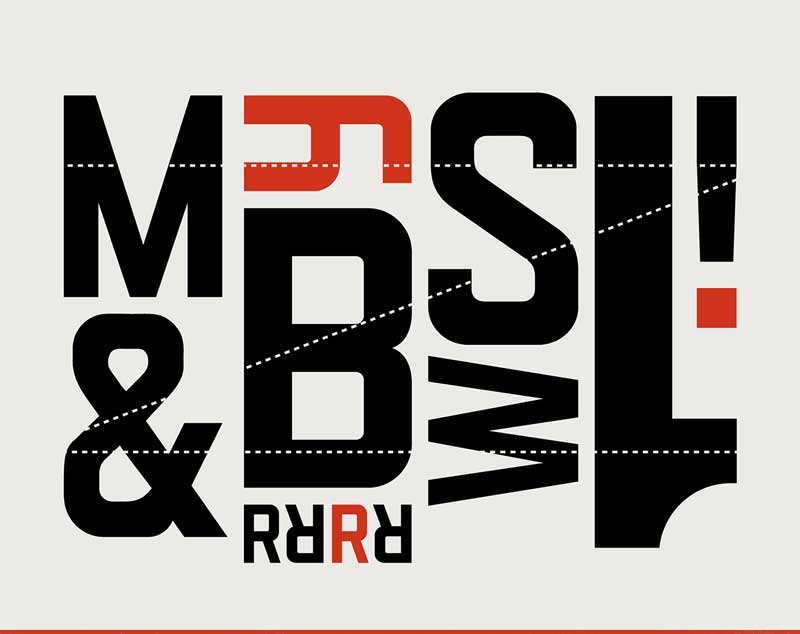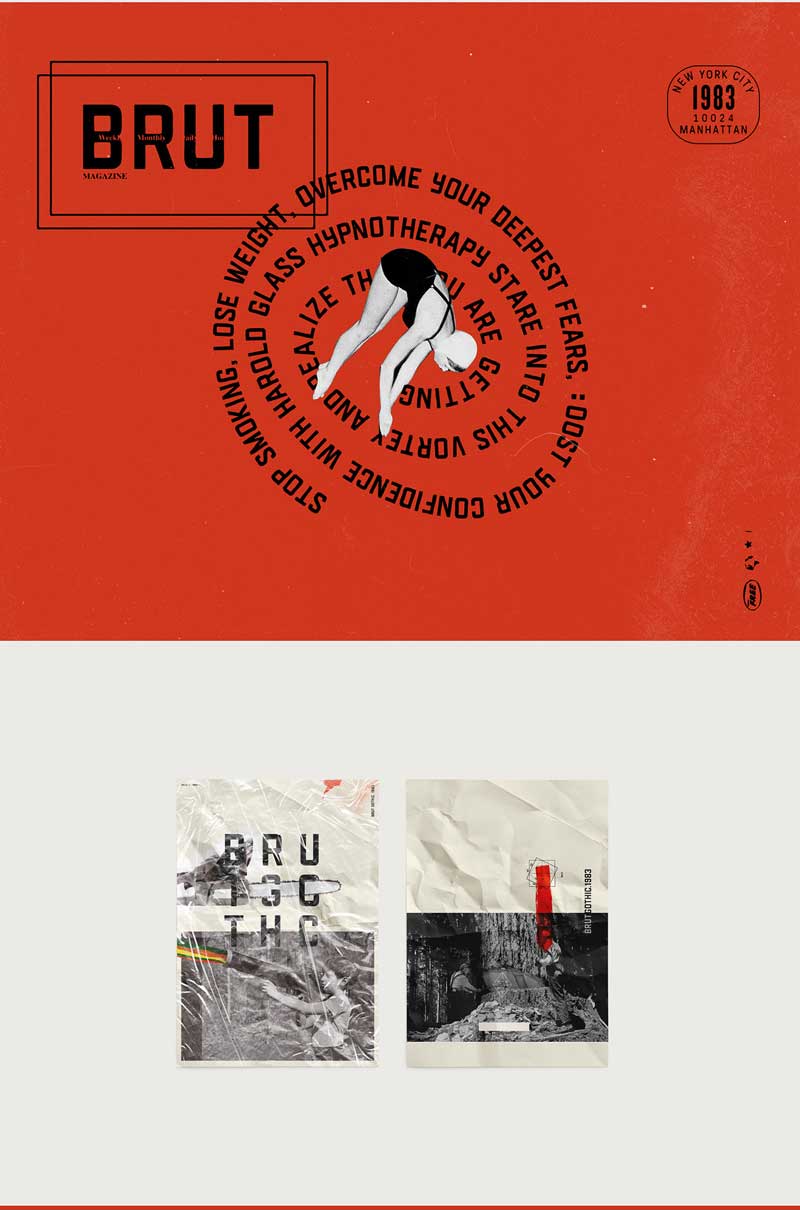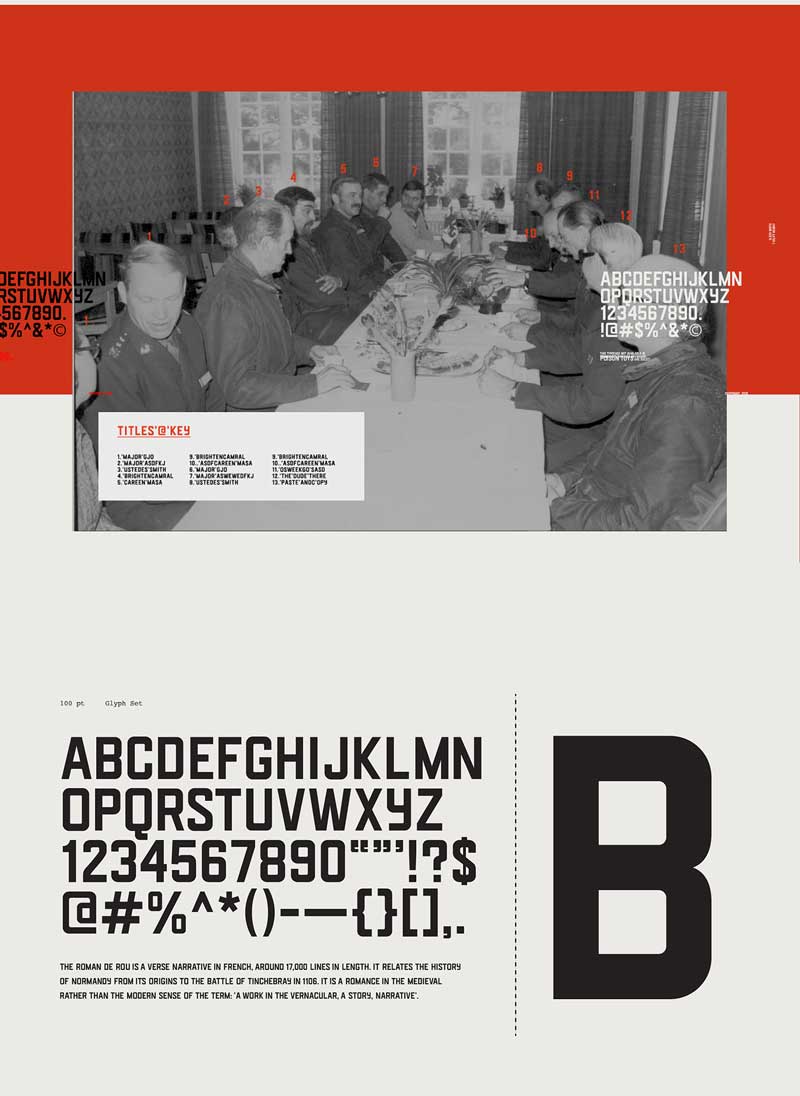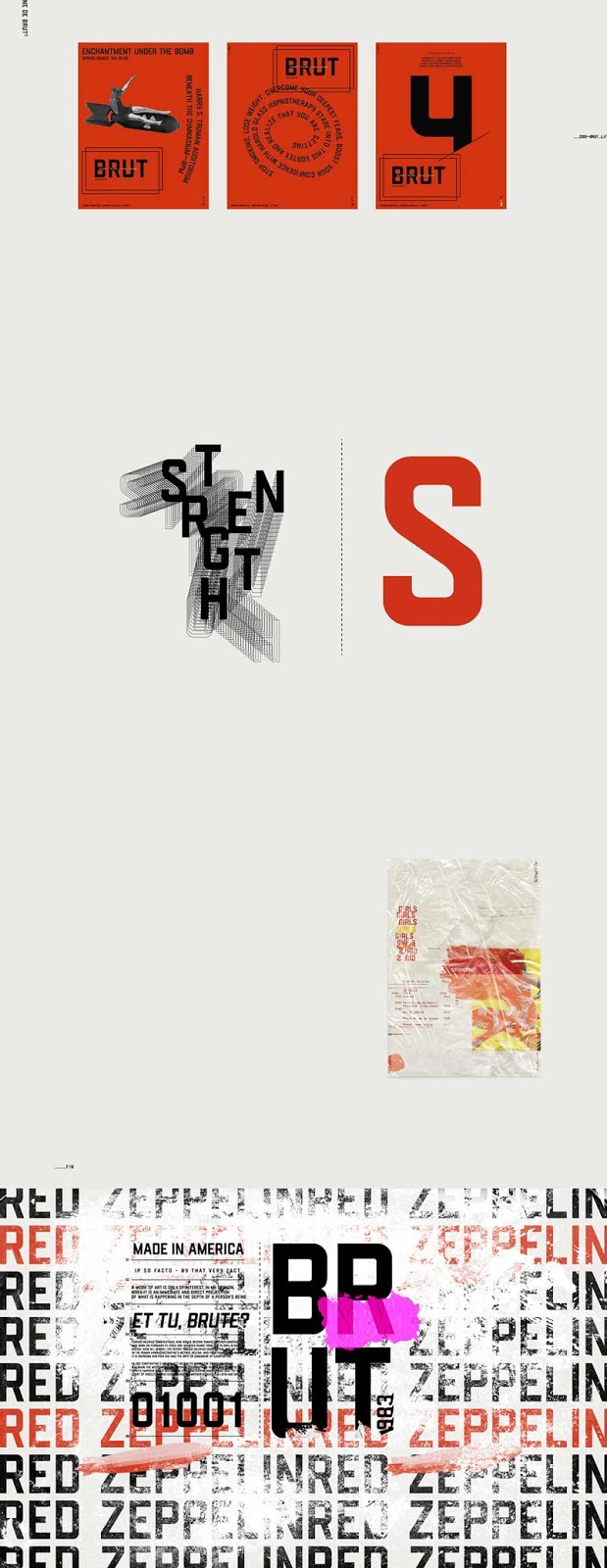
Brut Gothic Sans Serif Font
Brut Gothic is a sans serif display typeface designed for headlines and captions. It’s inspired by cl signage from a bygone era, with derivations from technical field drawing and Russian constructive! Its robust, masculine angular forms make it ideal for a wide variety of projects, including environmental design and graphic elements. Brut Gothic has multilingual support, including all caps letters, symbols, and punctuation.